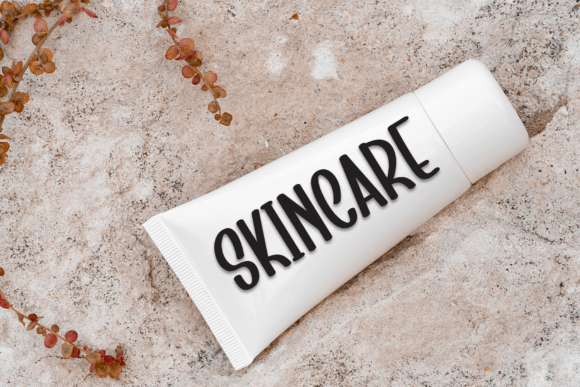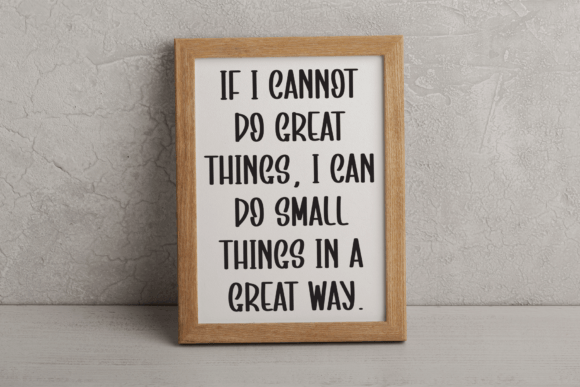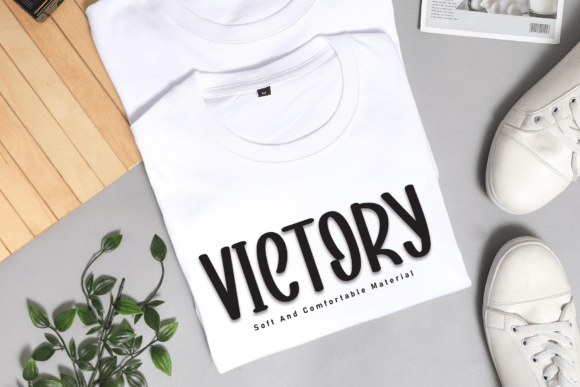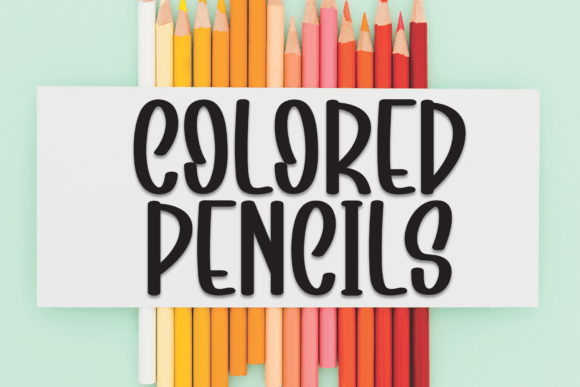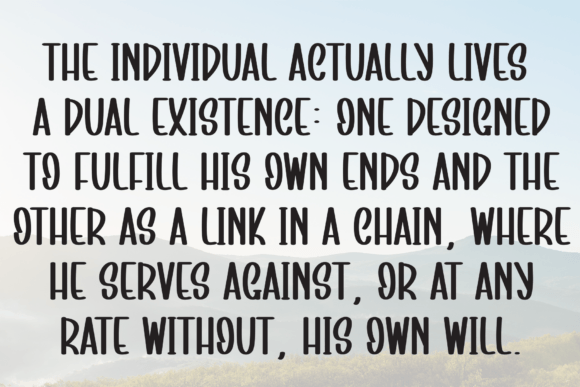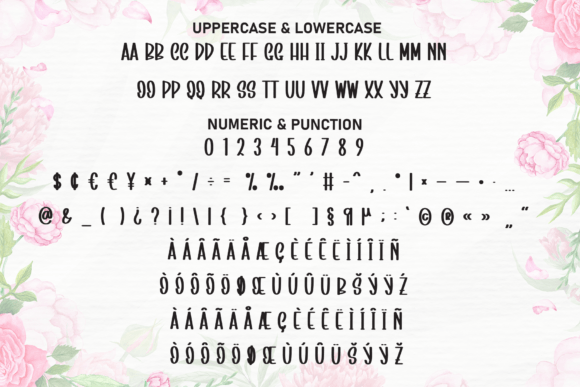
Introduction to Smart Female Font
As designers, we’ve all been there – staring at a blank canvas, searching for that perfect font to bring our creative project to life. The blank page can be intimidating, but what if you had a secret weapon at your disposal? Enter the Smart Female Font, a delightful hand-scripted display typeface that’s sure to add a touch of whimsy and charm to any design.
With its vibrant harmony of sweetness and friendliness, this adorable font is an authentic script that’s perfect for enhancing wedding invitations, greeting cards, and more. Whether you’re working on a high-quality design project or just need a free download to add a personal touch, the Smart Female Font is an invaluable design resource that’s sure to elevate your creative work.
What sets the Smart Female Font apart is its unique ability to exude a warm, endearing feel – making it the perfect choice for designers who want to create a truly memorable experience for their audience.
Key Features of Smart Female Font
- Unique, modern design with a touch of femininity, perfect for branding, advertising, and editorial projects.
- Supports multiple languages, making it a versatile font for international design projects.
- Designed to be highly legible, even at small font sizes, ensuring that your message is conveyed clearly and effectively.
Honest Review: Smart Female Font
As a designer, I was excited to try out the Smart Female Font for my latest creative project. I’m always on the lookout for high-quality design resources that can elevate my work and make it stand out.
Here are some things that I really like about the Smart Female Font:
- ✨ The font is incredibly versatile and can be used for a wide range of design projects, from logos to brochures.
- ✨ The design is feminine and elegant, making it perfect for projects that require a touch of sophistication.
- ⚠️ The font doesn’t come with a transparent background, which can be a problem if you’re working with images or other design elements that require a clear background.
- ⚠️ The font is not as comprehensive as some other design resources I’ve used in the past, with only a limited number of characters and styles available.
Overall, I think the Smart Female Font is a solid choice for designers who are looking for a high-quality, free design resource. While it has some limitations, it’s a great option for creative projects that require a touch of elegance and sophistication.